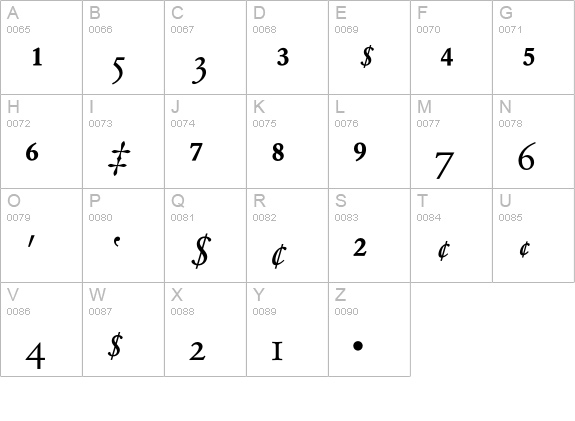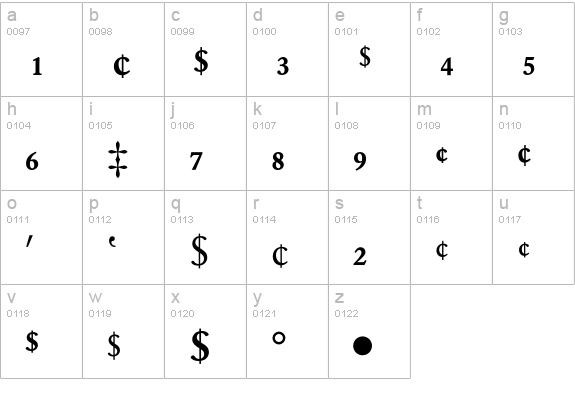
Garamond Fractions BQ Font Details
Garamond Fractions BQ font is a timeless and elegant typeface that combines classic design with modern functionality. This versatile font is perfect for a wide range of projects, from editorial layouts to branding and packaging designs. With its delicate serifs and graceful curves, Garamond Fractions BQ exudes sophistication and refinement. What sets Garamond Fractions BQ apart is its unique fraction characters, making it ideal for typesetting mathematical equations, recipes, or any other content that requires precise and clear fraction representation. The font's attention to detail and intricate design make it a standout choice for designers looking to add a touch of sophistication to their work. Best of all, Garamond Fractions BQ is freely available to download at FontsMarket.com. Whether you're a seasoned designer or just starting out, this font is sure to elevate your projects with its timeless appeal and functionality. Don't miss out on the opportunity to add Garamond Fractions BQ to your font collection today.